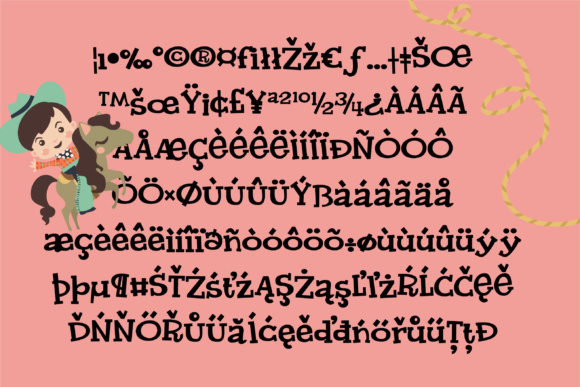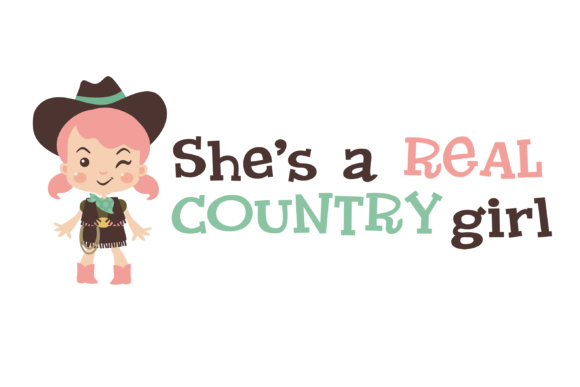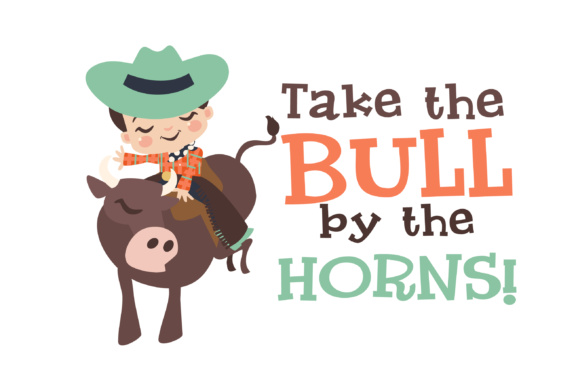
Introduction to Saddlesore Font
As a designer, you’ve probably found yourself in a moment where you’re struggling to find the perfect font to match your vision. You’ve scrolled through countless options, but nothing seems quite right. That’s where the Saddlesore Font comes in – a high-quality, whimsical slab serif font that’s sure to bring a touch of the Wild West to your creative project.
Imagine yourself working on a design, pouring your heart and soul into every detail. You want it to be perfect, but the right font is missing. That’s where the Saddlesore Font shines – it’s a versatile design resource that can elevate your work and take it to the next level. With its unique blend of elegance and ruggedness, this font is perfect for designers looking to add a touch of sophistication to their designs.
Key Features of Saddlesore Font
- High-quality design resource ideal for creative projects, offering a unique and elegant style.
- Features a transparent background, allowing for seamless integration with various design elements and backgrounds.
- Includes a comprehensive set of characters, including uppercase and lowercase letters, numbers, and punctuation marks.
- Perfect for designers and artists looking for a distinctive and creative font to enhance their projects, from logos and branding to digital art and graphics.
Honest Review: Saddlesore Font
I recently had the chance to work with the Saddlesore Font, and I must say it’s been a game-changer for my creative projects. As a designer, I’m always on the lookout for high-quality design resources that can help elevate my work.
The Saddlesore Font is a beautifully crafted typeface that’s perfect for any design project. With its unique, vintage aesthetic, it adds a touch of sophistication to even the most basic designs. I’ve used it for everything from branding and packaging to web design and print materials.
- Unique, vintage aesthetic that adds a touch of sophistication
- Transparent background, allowing for seamless integration with other design elements
- Only available in a limited number of font styles, which may limit its versatility
- Not suitable for use in situations where a more modern or sleek font is required
Overall, I’m thoroughly impressed with the Saddlesore Font. It’s a high-quality design resource that’s perfect for creative projects, and its unique aesthetic makes it a standout choice for designers looking to add some personality to their work.
Common Use Cases for Saddlesore Font
The Saddlesore Font is perfect for a variety of creative projects, including graphic design, digital art, and print design. Use the font to create eye-catching logos, posters, and brochures. Its unique design makes it ideal for projects that require a touch of elegance and sophistication.